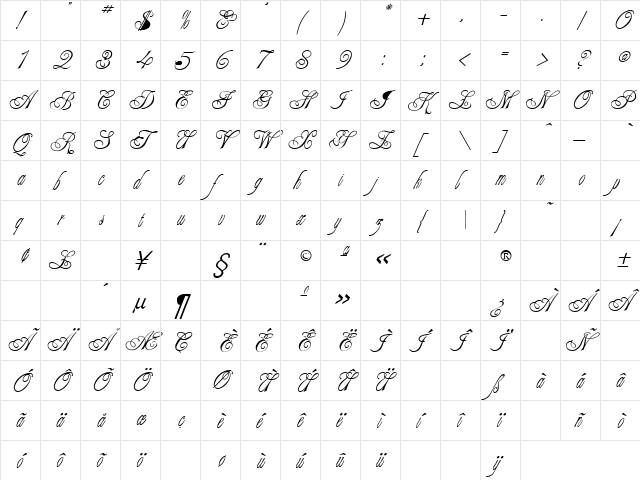
Moving' Out 2 Regular
Moving' Out 2 is a composed and adaptable typeface that performs quietly and consistently across a wide range of design contexts.